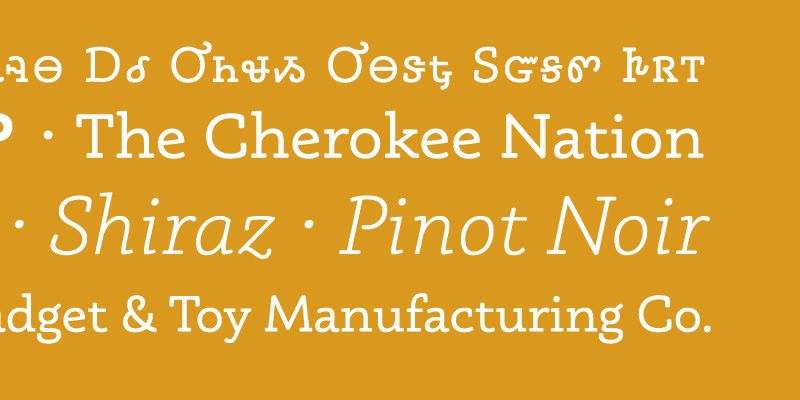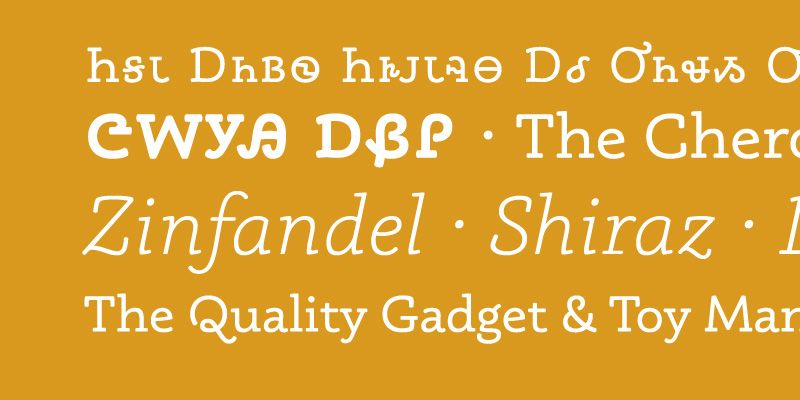
A full family with the new Cherokee lowercase and a historic, new italic design for the Cherokee language. Accompanied by a warm and friendly Latin complement.